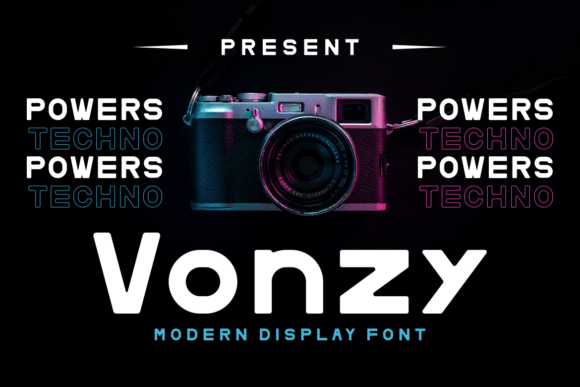
Introducing Vonzy Font, a striking and audacious sans serif creation by maikofarazhatta, poised to revolutionize your design repertoire. This font's captivating presence will add an instant touch of sophistication and modernity to your projects, leaving an indelible impression on your audience.
With its clean lines, sharp angles, and confident strokes, Vonzy embodies the essence of contemporary design. Its versatility knows no bounds, seamlessly adapting to a multitude of applications, from sleek logos and branding to captivating posters and eye-catching social media graphics. Unleash your creativity and witness how Vonzy transforms your designs into masterpieces of visual communication.
Crafted with meticulous attention to detail, Vonzy boasts a comprehensive character set, ensuring compatibility with a wide range of languages. Its crisp and legible letterforms guarantee effortless readability, enhancing the impact of your message across various platforms. Whether you're designing for print or digital, Vonzy's unwavering clarity ensures your content shines.
Beyond its practical advantages, Vonzy possesses an undeniable emotional appeal. Its bold and confident demeanor exudes strength and determination, empowering you to make a statement with your designs. Its clean and minimalist aesthetic evokes a sense of order and sophistication, captivating your audience with its timeless elegance.